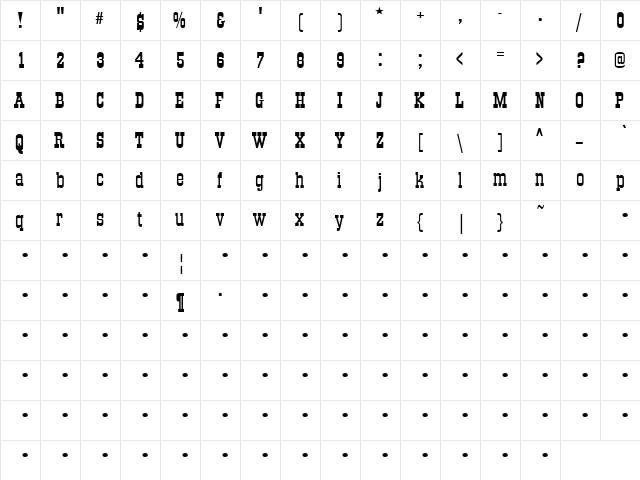
QTOKCorral-Ext Regular Font Preview
QTOKCorral-Ext Regular
Design Context for QTOKCorral-Ext Typeface
QTOKCorral-Ext is a composed and adaptable typeface that performs quietly and consistently across a wide range of design contexts.